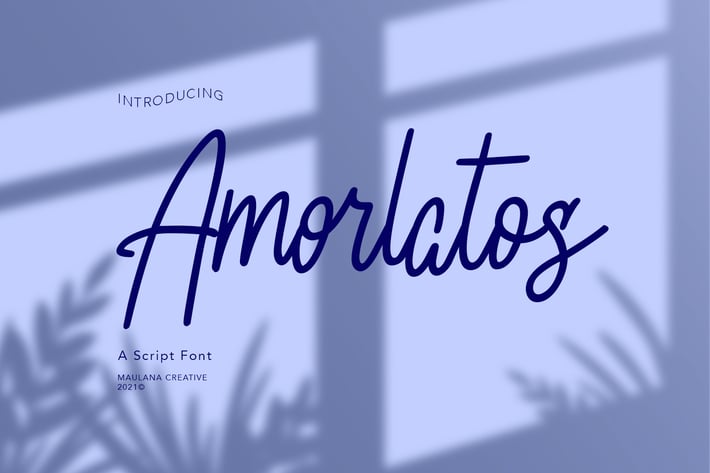
Amorlatos Script Font
Amorlatos script is a handwritten script font, with clean monoline stroke and fun character. It has Opentype features of ligatures character, To give you an extra creative work. Amorlatos script font support multilingual more than 100+ language. This font is good for logo design, Social media, Movie Titles, Books Titles, a short text even a long text letter and good for your secondary text font with sans or serif. Make a stunning work with Amorlatos script font.